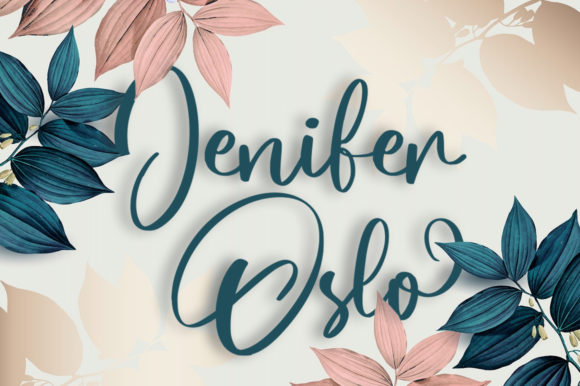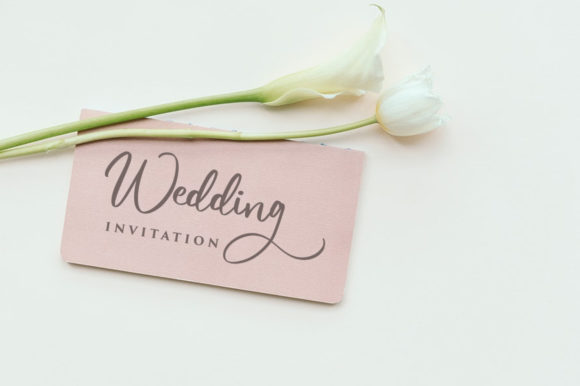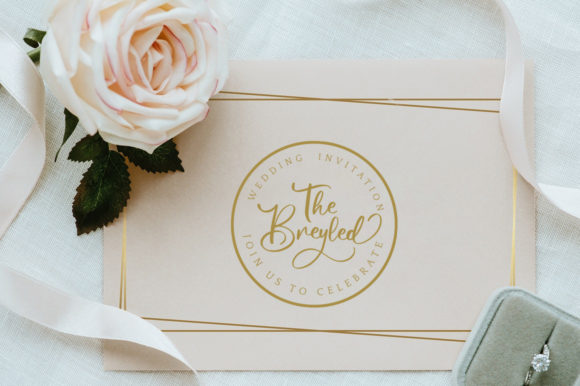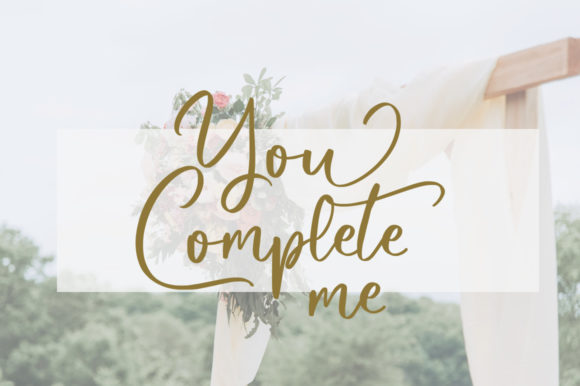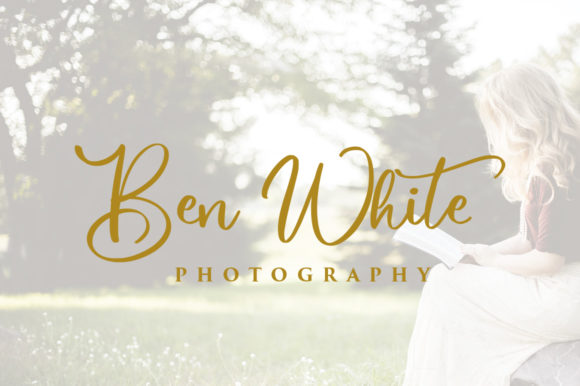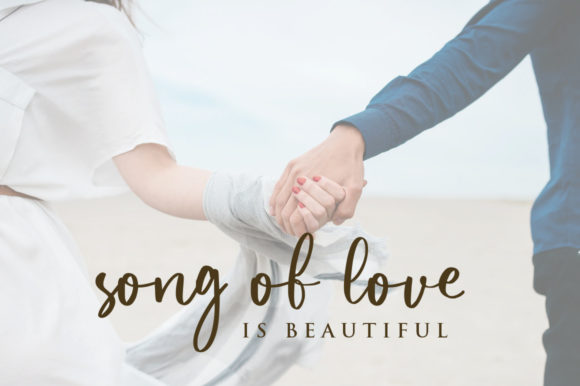
Introducing Butgone Font: Elevate Your Designs with Elegance and Flair
In the world of typography, a font can make or break a design. For designers and crafters seeking to add a touch of sophistication and whimsy to their projects, Butgone Font is an exceptional choice. This delicate, elegant, and flowing handwritten font is designed to bring a sense of refinement and poise to a wide range of designs.
The Characteristics of Butgone Font
Butgone Font boasts beautiful and well-balanced characters that are meticulously crafted to ensure harmony and visual appeal. Its elegant and flowing script is perfect for adding a touch of luxury, sophistication, and creativity to various design projects. Whether you’re working on a branding project, packaging design, or a digital platform, Butgone Font’s versatility makes it an excellent fit.
Why Choose Butgone Font?
- Delicate and Elegant: Butgone Font’s refined and sophisticated appearance makes it ideal for designs that require a touch of elegance.
- Flowing Script: The font’s smooth and flowing script ensures that your text reads beautifully, adding a sense of dynamism to your designs.
- Well-Balanced Characters: Each character in Butgone Font is carefully crafted to ensure balance and harmony, making it easy to read and visually appealing.
- Versatile: Butgone Font can be used in a variety of design projects, from branding and advertising to packaging and digital platforms.
How to Use Butgone Font in Your Designs
Butgone Font can be used in a multitude of design projects, including:
- Branding and Logo Design: Add a touch of elegance and sophistication to your brand’s identity with Butgone Font.
- Packaging Design: Elevate your product packaging with Butgone Font’s refined and luxurious appearance.
- Digital Platforms: Use Butgone Font to add a touch of whimsy and creativity to your website, social media, or digital advertising.
- Crafting and DIY Projects: Butgone Font is perfect for crafters and DIY enthusiasts looking to add a personal touch to their projects, such as handmade cards, invitations, or journaling.
Tips for Getting the Most Out of Butgone Font
To make the most of Butgone Font, consider the following tips:
- Experiment with Pairings: Combine Butgone Font with other fonts to create a unique and visually appealing typography.
- Play with Sizes: Use Butgone Font in various sizes to create visual hierarchy and add emphasis to your design.
- Add Decorative Elements: Enhance your design with decorative elements, such as flourishes or illustrations, to complement Butgone Font’s elegant script.
Butgone Font is a versatile and elegant handwritten font that can elevate your designs with its refined and sophisticated appearance. With its beautiful and well-balanced characters, flowing script, and versatility, Butgone Font is an excellent choice for designers and crafters seeking to add a touch of luxury and whimsy to their projects. Add Butgone Font to your design toolkit and watch your creative ideas come alive!